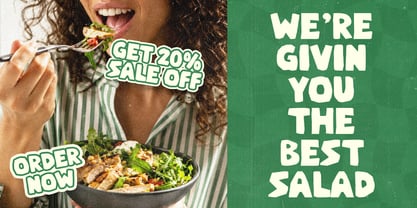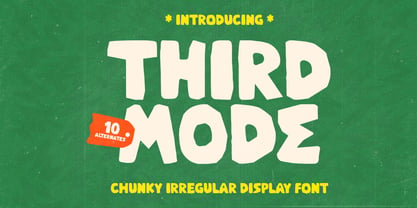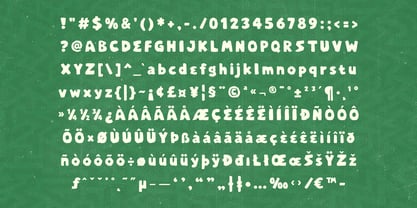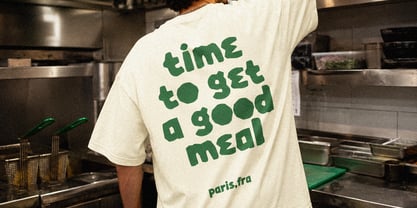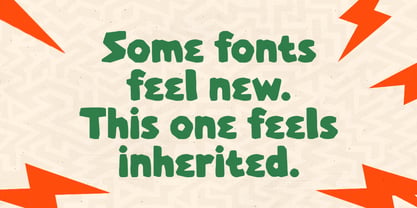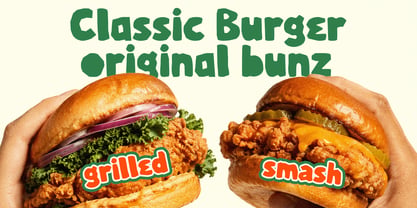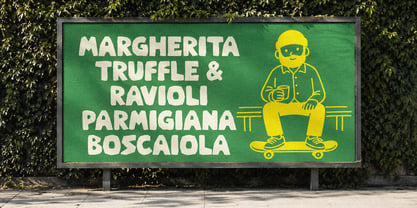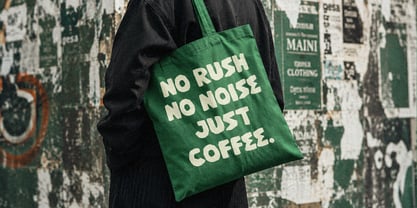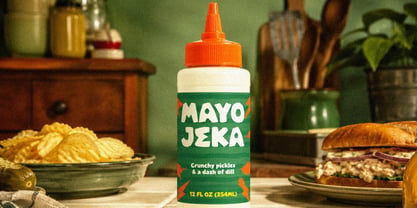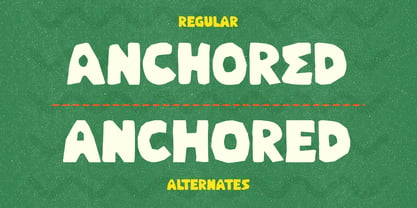
Third Mode
Third Mode is a bold, chunky display font with an irregular handcrafted style that instantly grabs attention. Its oversized letterforms feature playful curves, uneven edges, and organic proportions, creating a fun and energetic personality. The font balances a retro-inspired aesthetic with a modern, approachable feel, making it highly effective for designs that need a strong visual impact while maintaining a friendly and creative appearance.
With its distinctive character and eye-catching presence, Third Mode is ideal for headlines, posters, branding, packaging, children's products, social media graphics, YouTube thumbnails, event promotions, game titles, and merchandise designs. Its expressive shapes make it perfect for projects that aim to communicate excitement, creativity, and individuality, especially when used in large sizes where its unique details can truly shine.